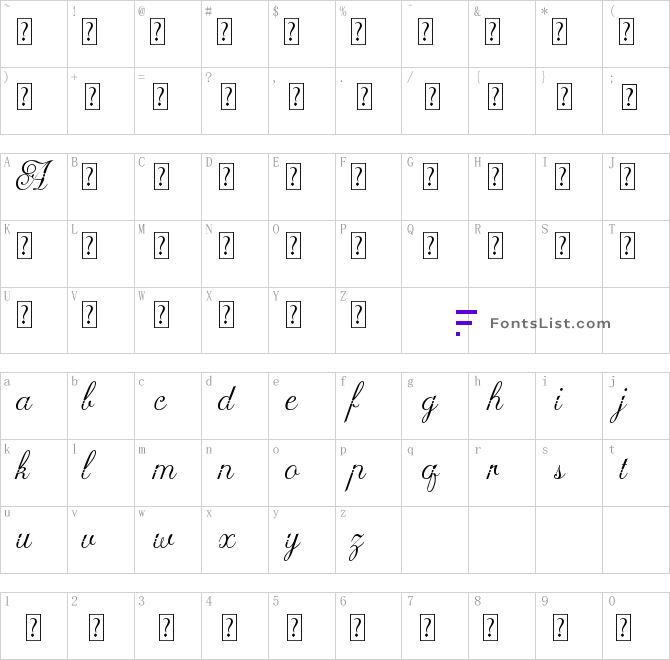
- Font Name:Arellion demo
Arellion-demo.ttf is a very beautiful artistic font, Arellion-demo.ttf is widely used in the design and printing of various books and pictures,Arellion-demo.ttf has a strong visual impact,Arellion-demo.ttf is a commonly used font in newspapers, magazines and books, and is used in posters, e-commerce Poster design, store design, logo design, font design and other fields.Arellion-demo.